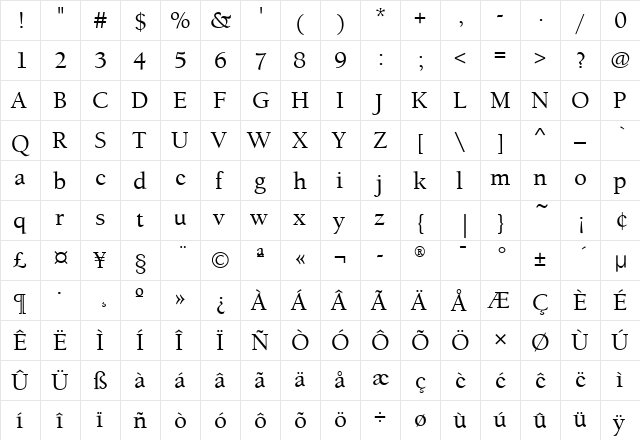
BerkeleyOldMdITC Medium
Design Context for BerkeleyOldMdITC Typeface
BerkeleyOldMdITC takes a measured approach to typography — its balanced proportions and neutral character make it a reliable workhorse for both digital and print work.
Pro Tip: Use BerkeleyOldMdITC in both headline and body roles to test its range before committing to a single application.